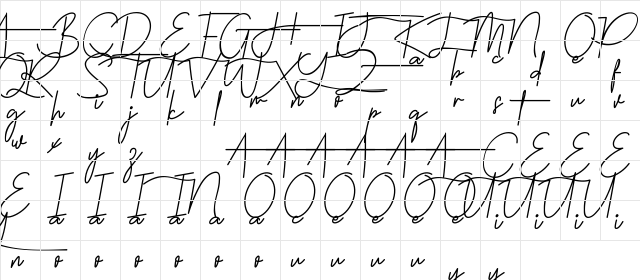
Holdsmith Demo Regular
Design Context for Holdsmith Demo Typeface
Holdsmith Demo is a composed and adaptable typeface that performs quietly and consistently across a wide range of design contexts.
Pro Tip: Use Holdsmith Demo in both headline and body roles to test its range before committing to a single application.